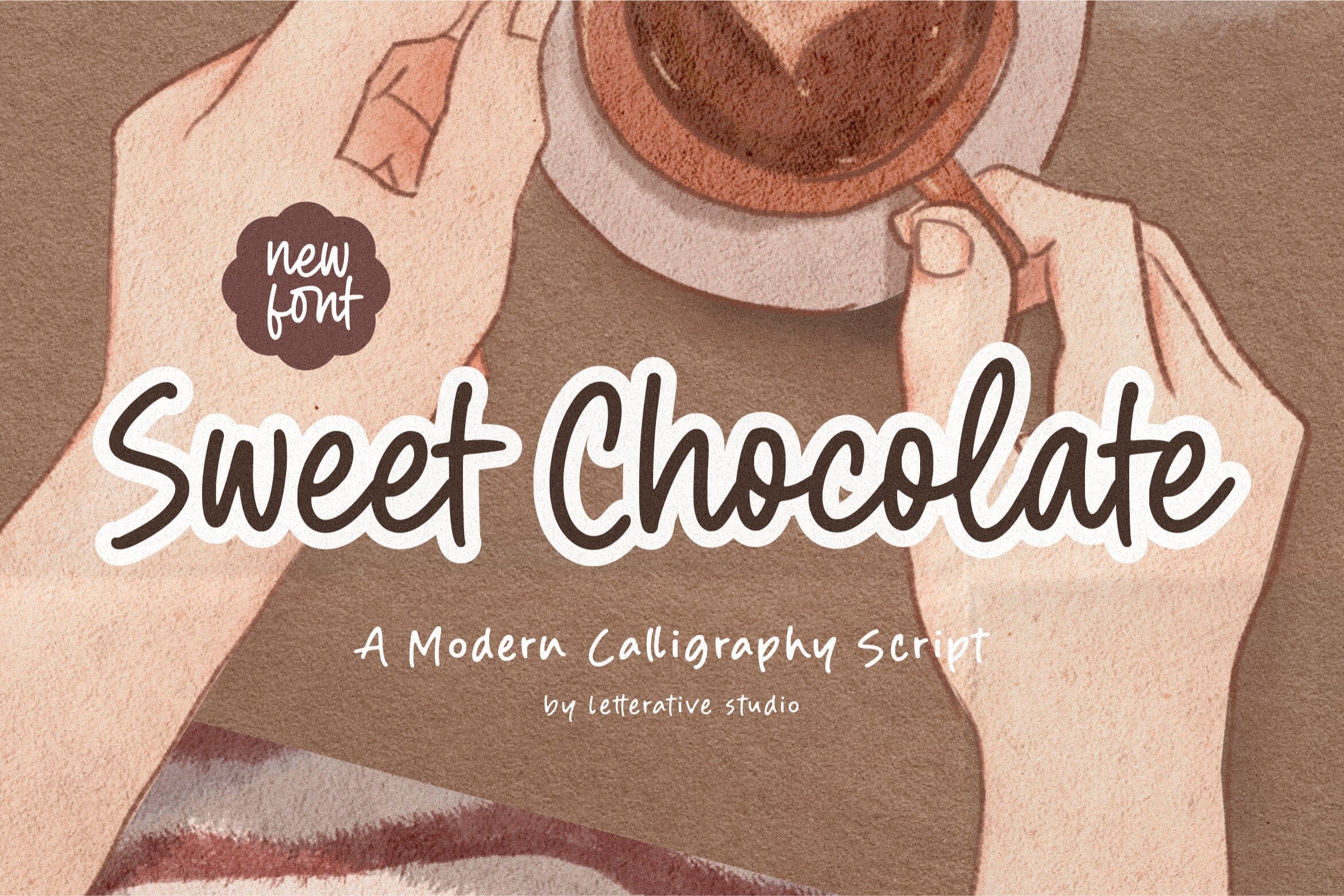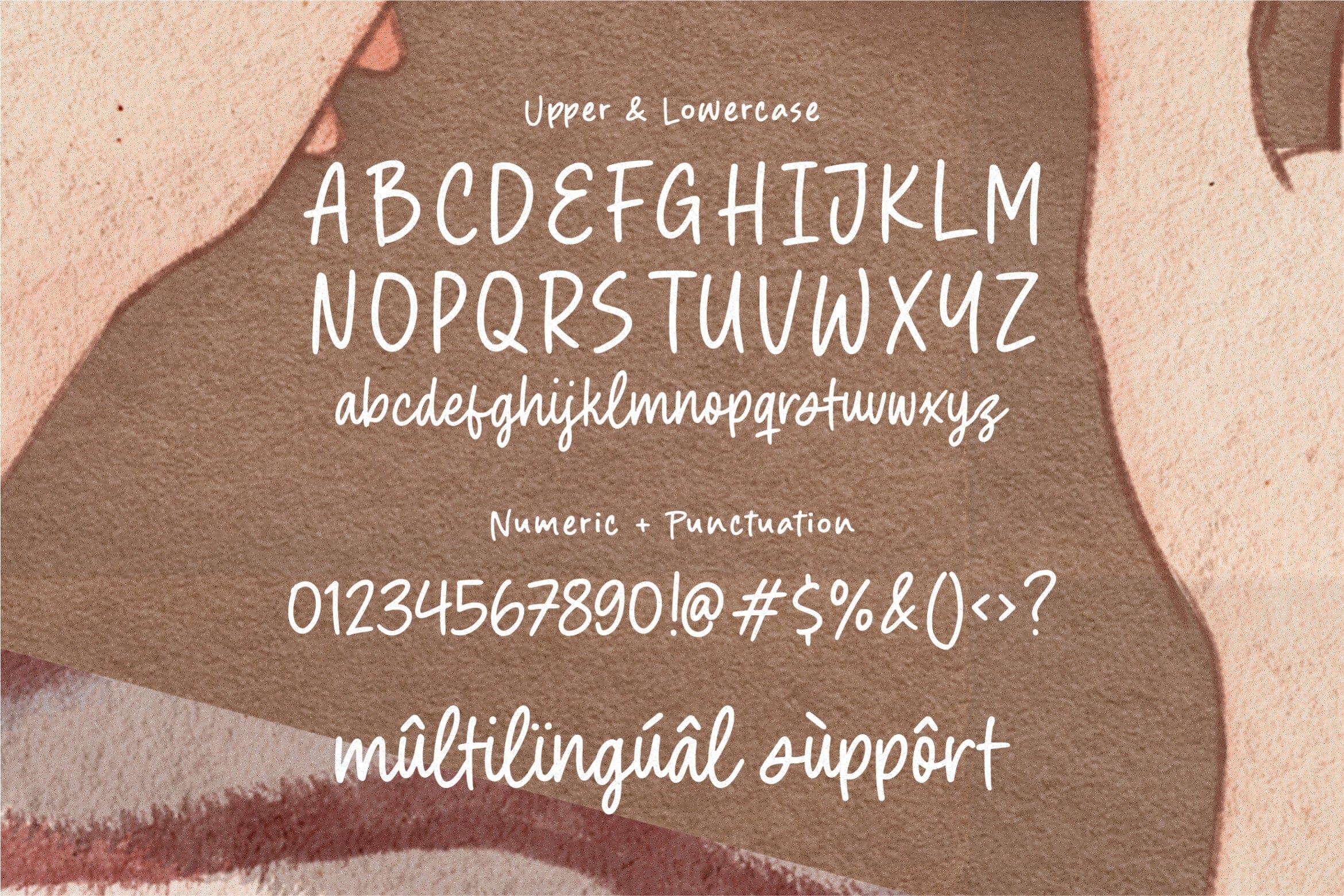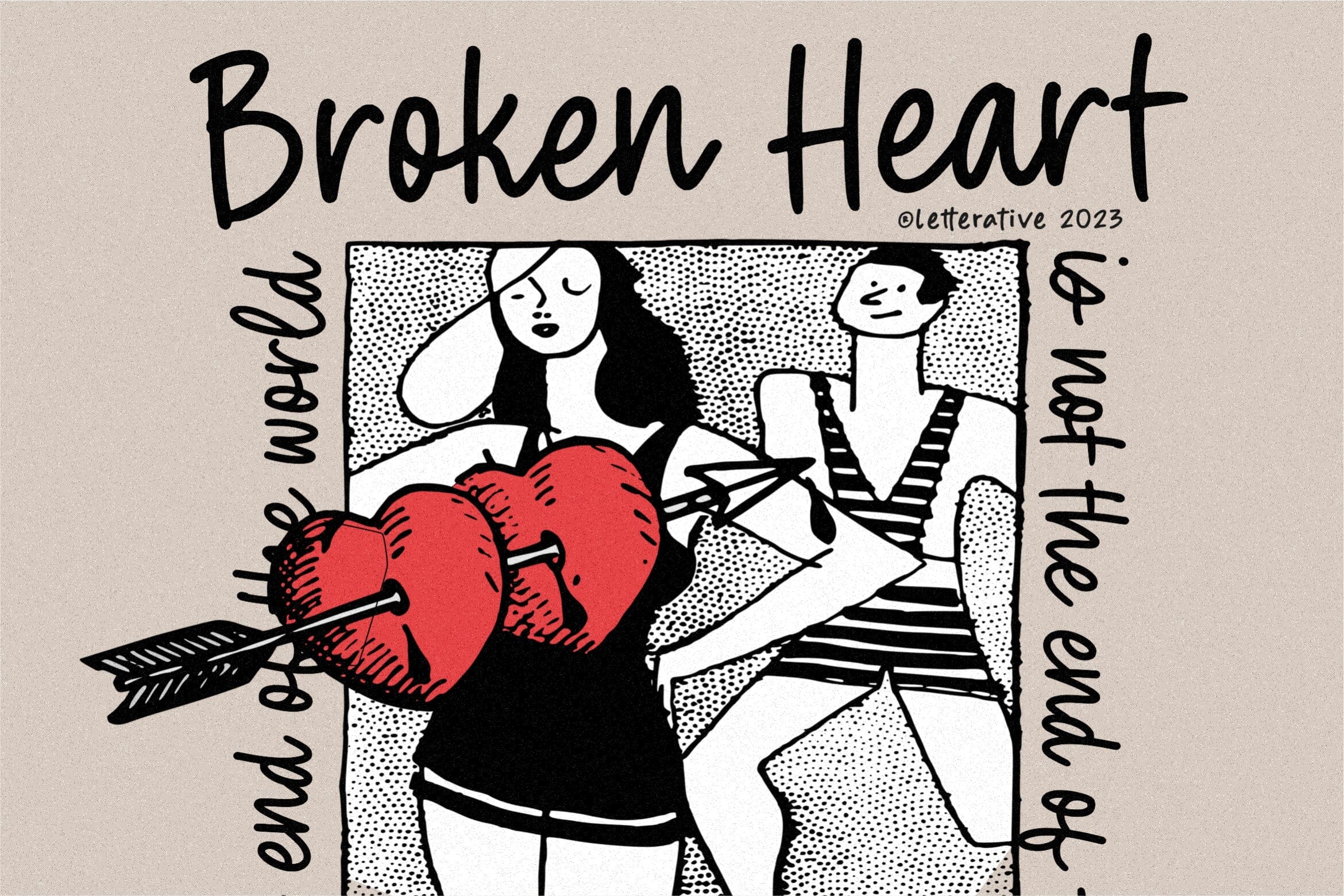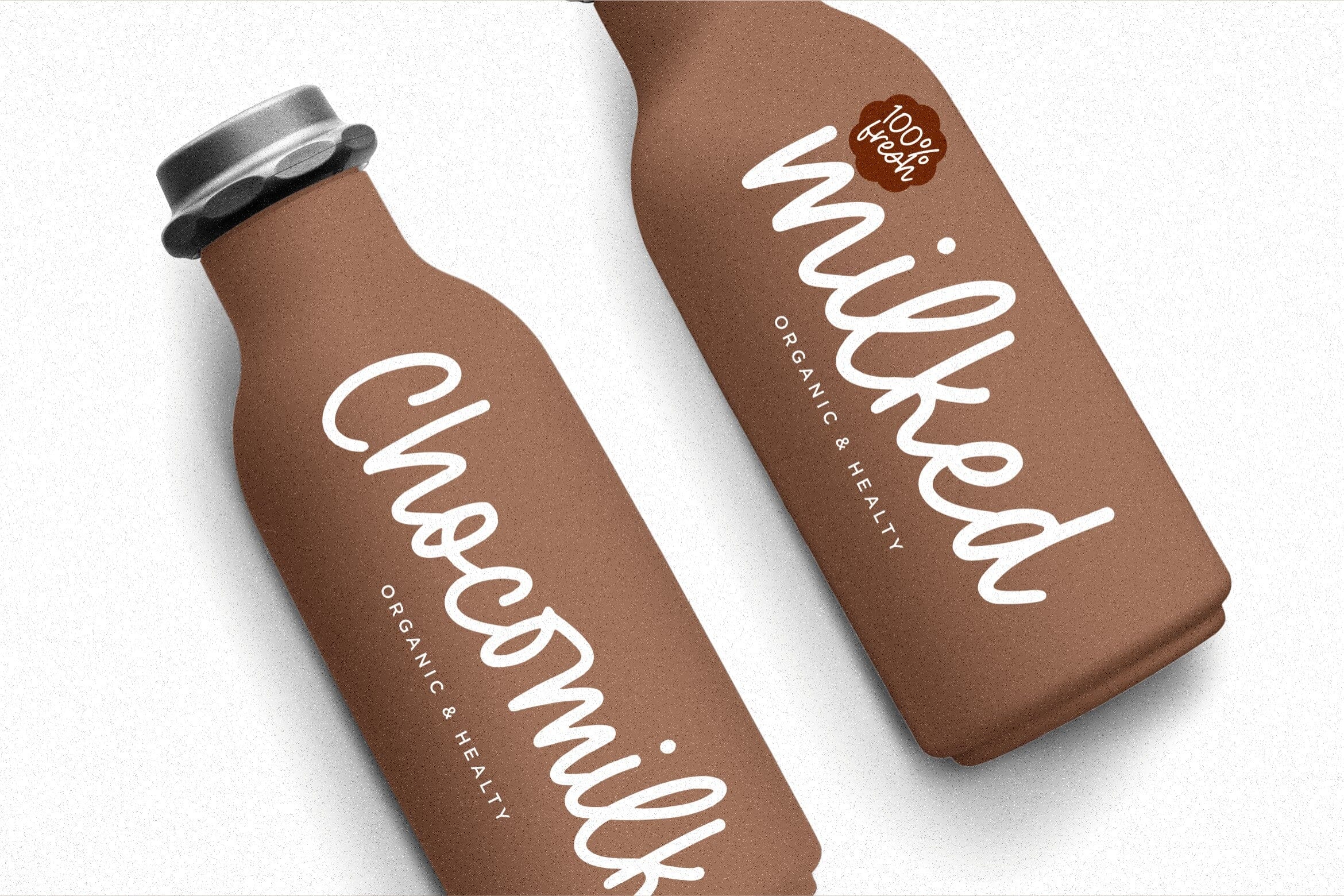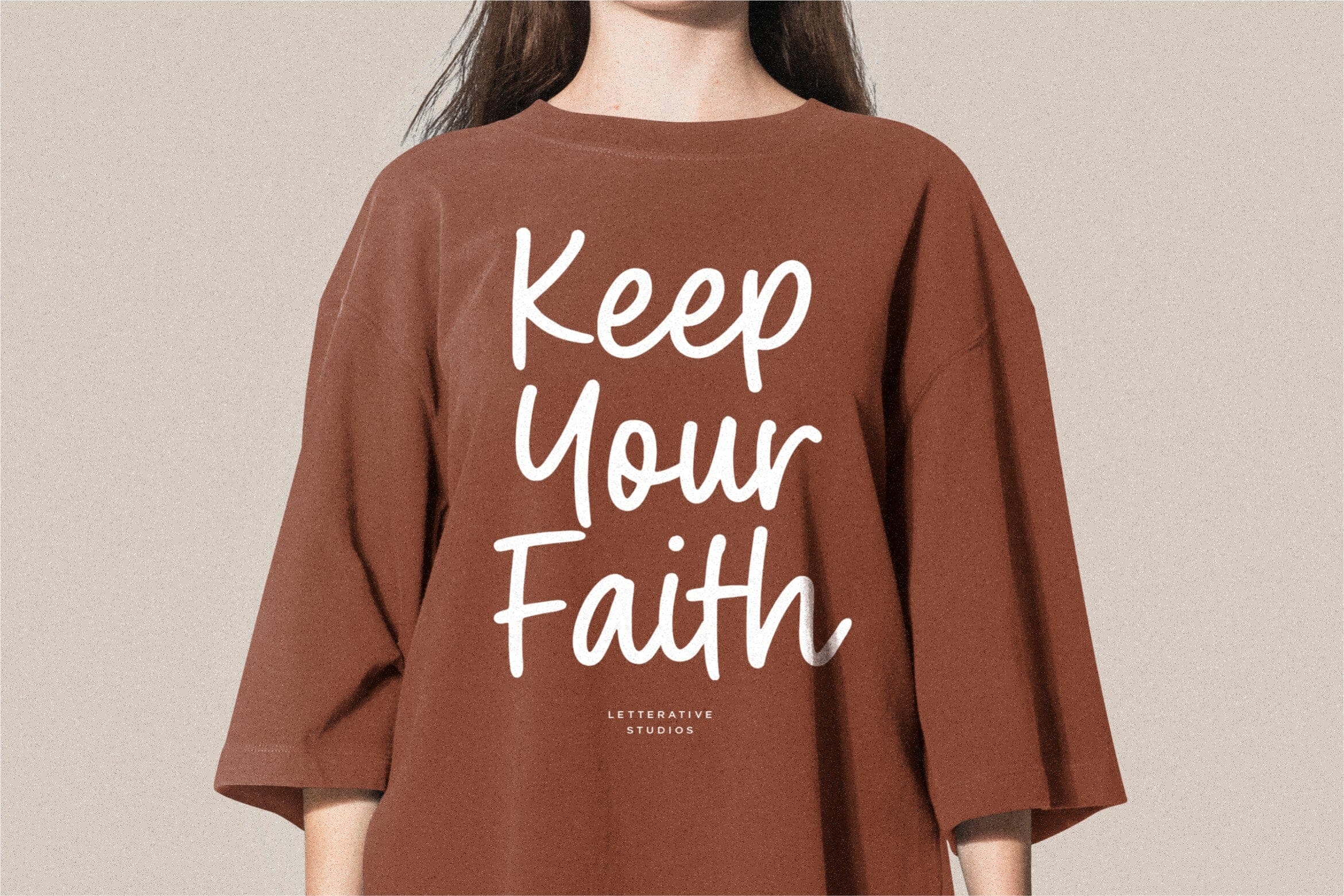
Sweet Chocolate Modern Calligraphy Script Font
About Sweet Chocolate Modern Calligraphy Script Font
Introducing by Letterative Studio : Sweet Chocolate Font Sweet Chocolate is a Modern Calligraphy Script Font. Sweet Chocolate is a genuinely original and modern handwritten script font. It has a casual style and it will enhance each of your favorite design ideas. This font includes : – TTF, OTF and WOFF – also multilingual support Enjoy the font! Feel free to comment or feedback Send me PM or email Thank you!